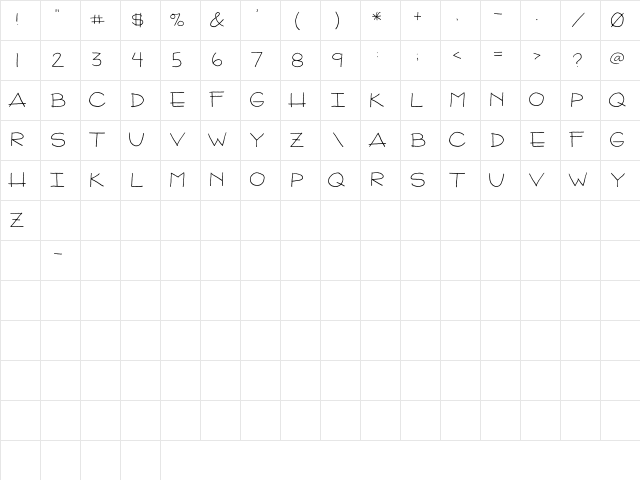
Complete 2Peas Arizona 2Peas Arizona glyph index. Displaying only characters natively supported by 2Peas Arizona 2Peas Arizona font.
2Peas Arizona is a composed and adaptable typeface that performs quietly and consistently across a wide range of design contexts.